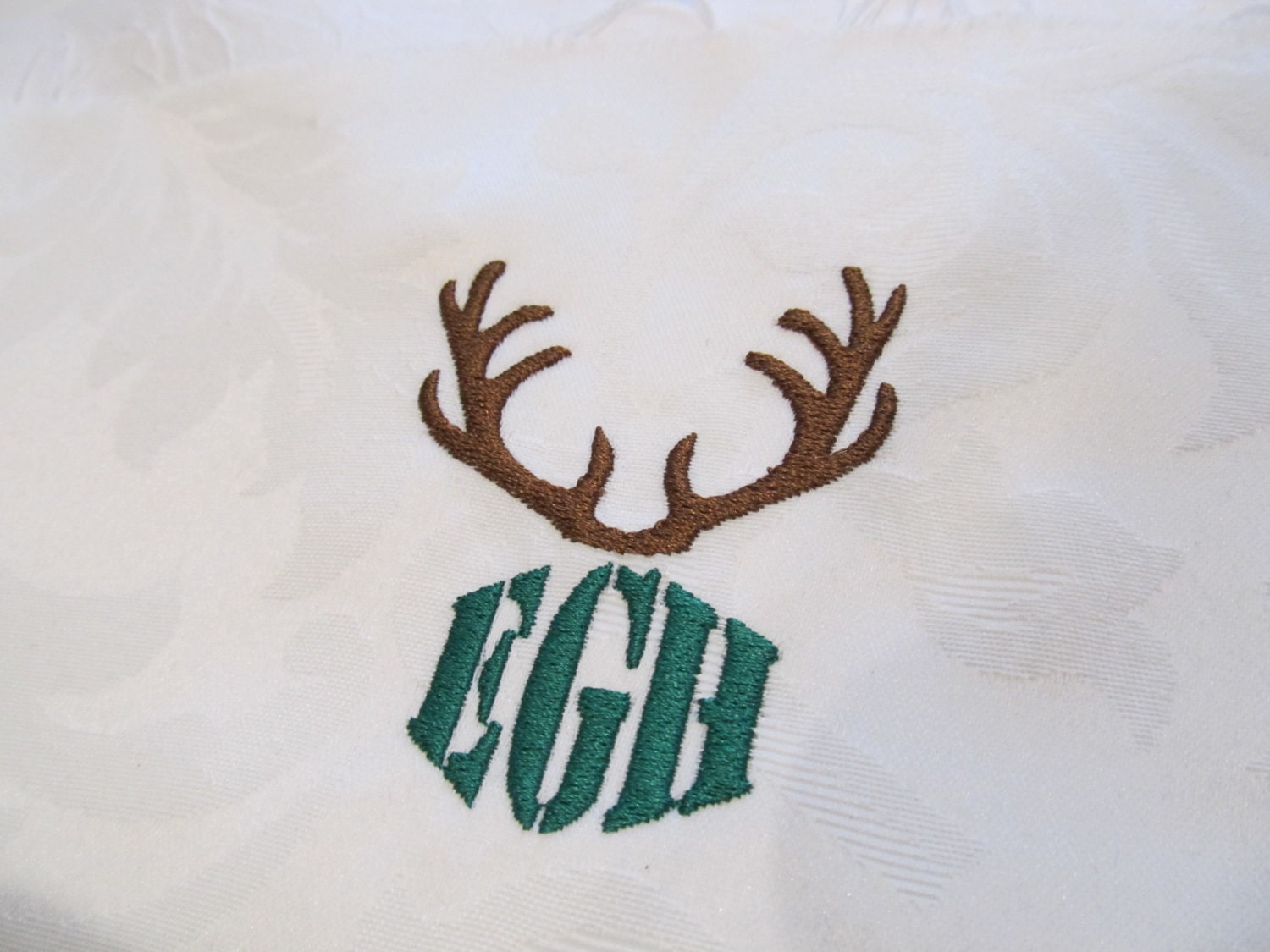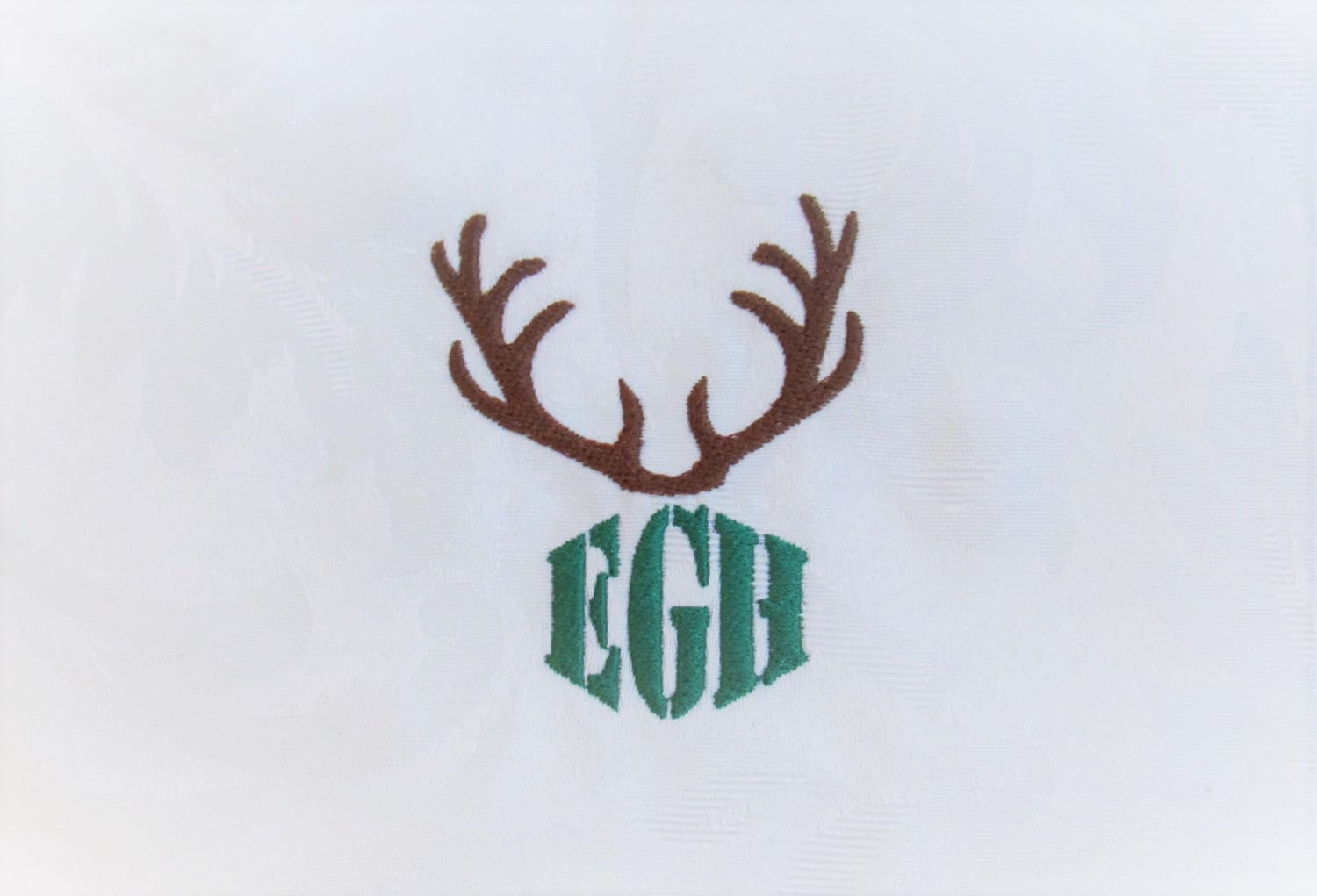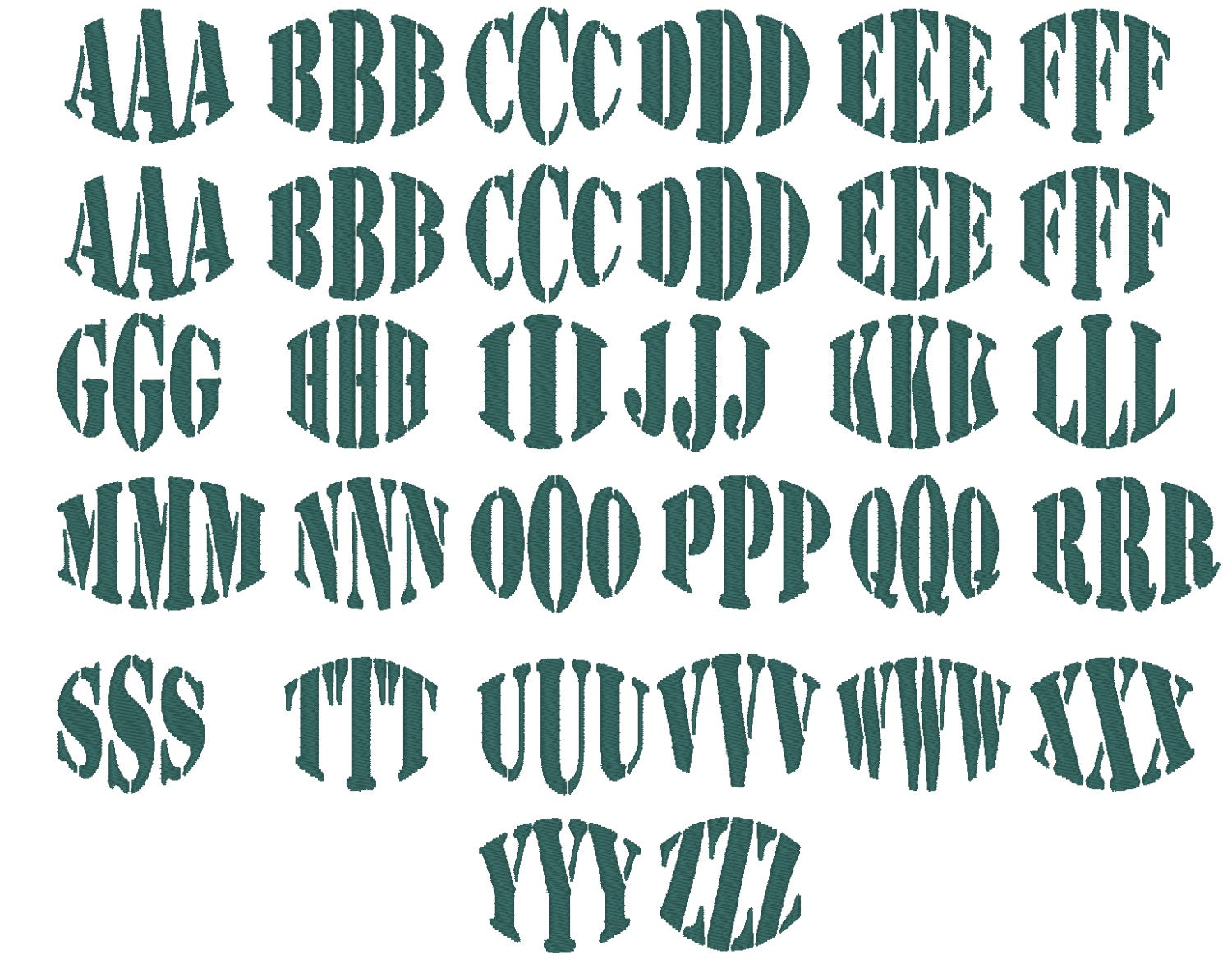
Antler Monogram Buck deer Antlers silhouette machine embroidery design & monogram font assorted sizes army camo stencil fill stitch alphabet
This set includes 78 uppercase letters for a complete 3 letter monogram in a flat stitch / fill stitch.